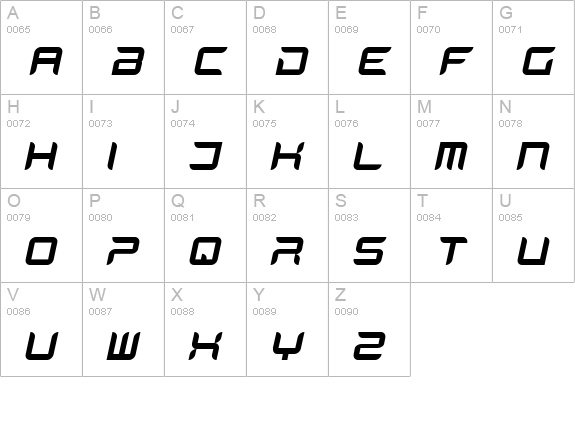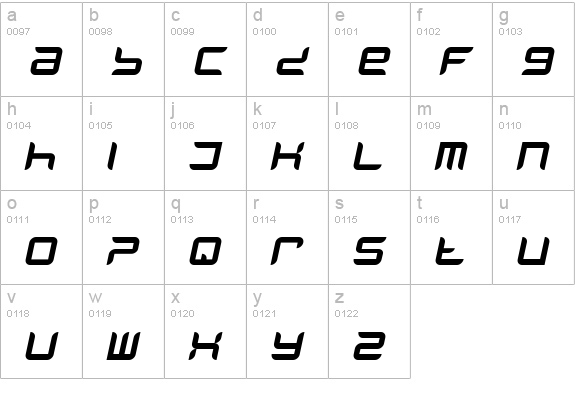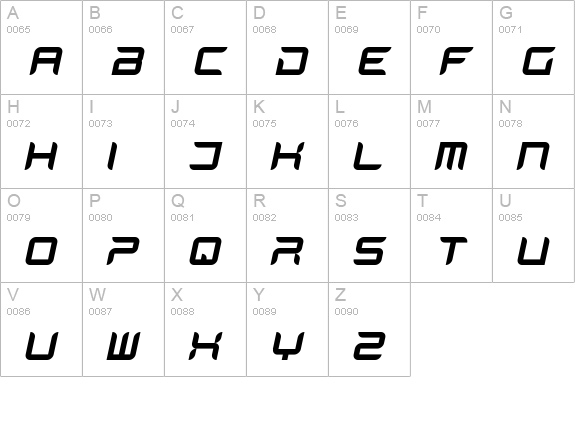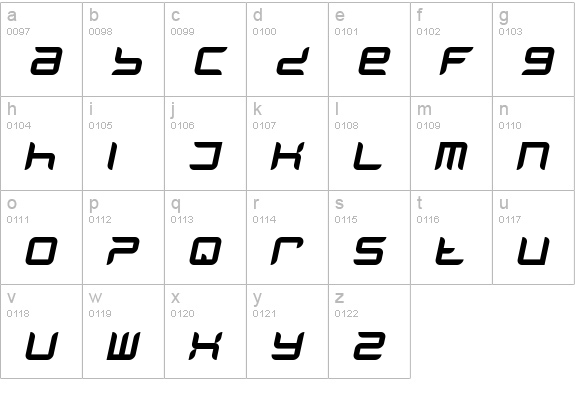
Phantom Italic Font Details
Phantom Italic is a distinctive, italic variant in the Phantom typeface family \xE2\x80\x94 well suited to design and typography projects.
Introducing Phantom Italic, a stunningly elegant font that exudes an air of mystery and allure. This beautifully crafted font effortlessly combines a delicate balance between sophistication and boldness, making it the perfect choice for those seeking to make a lasting impression. Phantom Italic boasts a unique and captivating design, characterized by its slanted and italicized letterforms. Its sleek and flowing curves add a touch of elegance to any project, while its sharp edges command attention and demand to be noticed. Whether you're designing a logo, creating eye-catching headlines, or crafting an exquisite invitation, Phantom Italic is sure to elevate your work to new heights. Its versatility allows it to seamlessly adapt to various design styles, from modern and minimalist to vintage and ornate. But what truly sets Phantom Italic apart is the fact that it is freely available to download at FontsMarket.com. This means that you can easily access this exceptional font without any hassle or cost. It's a testament to our commitment to providing quality resources to designers and creatives, empowering them to bring their visions to life. Don't miss out on the opportunity to add this remarkable font to your collection. Download Phantom Italic today and unlock a world of unlimited design possibilities. Let its captivating presence and timeless elegance inspire your next project.